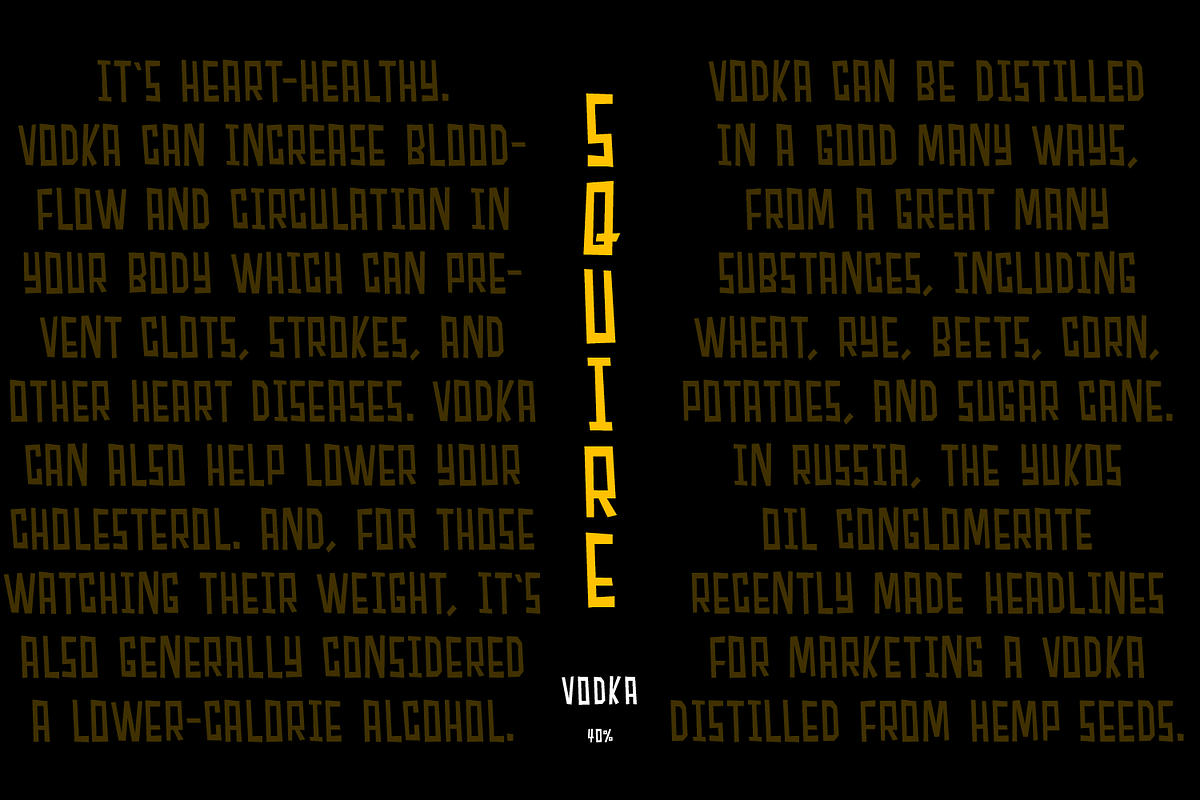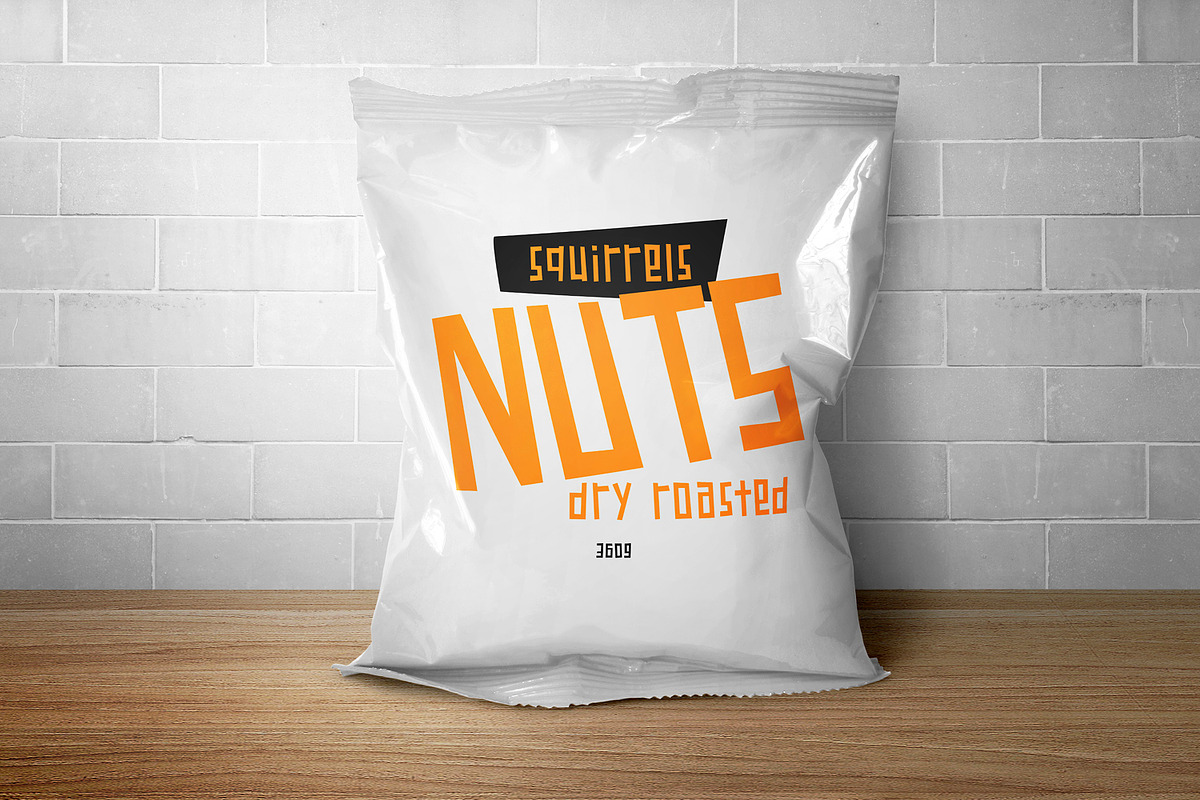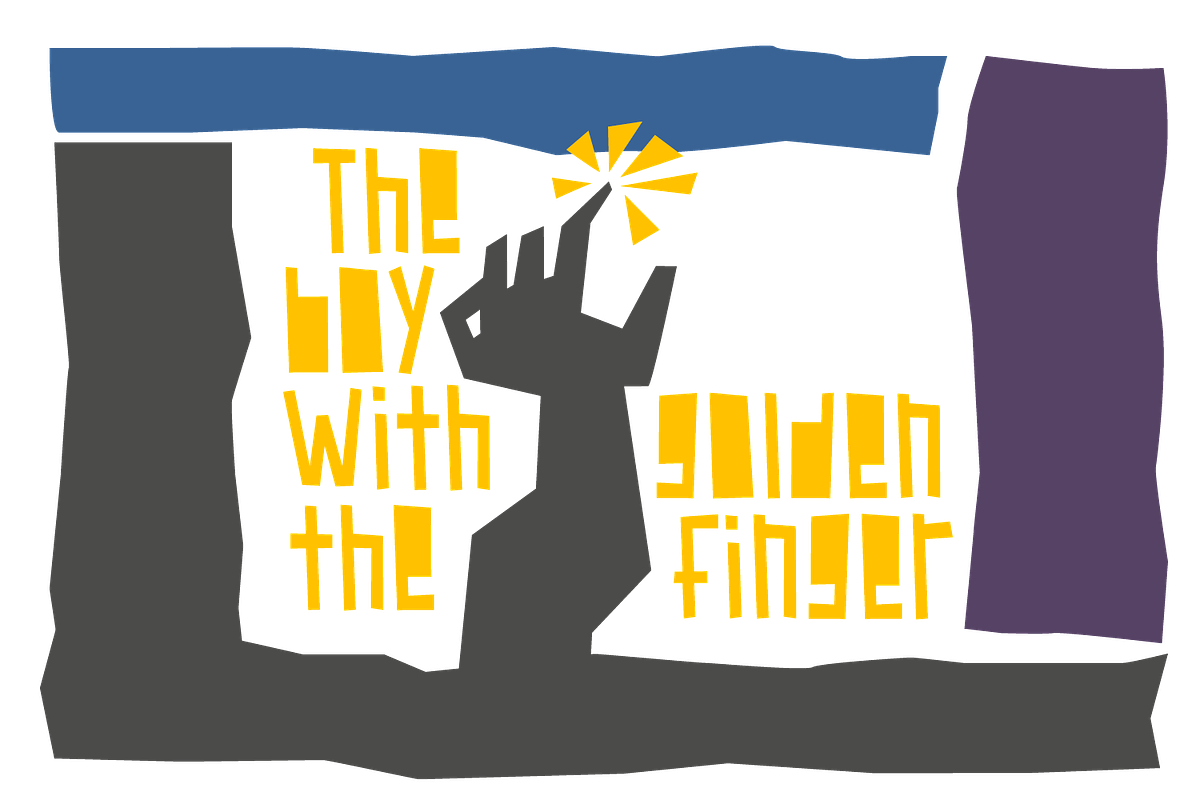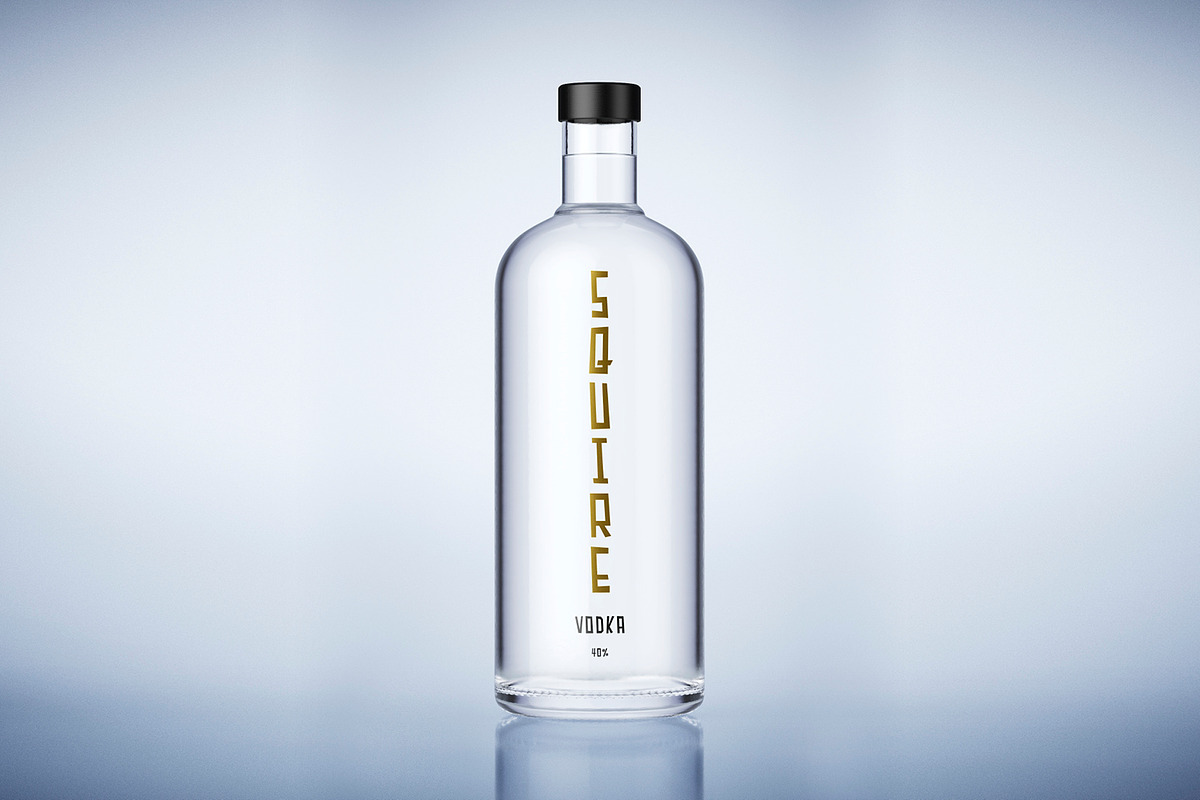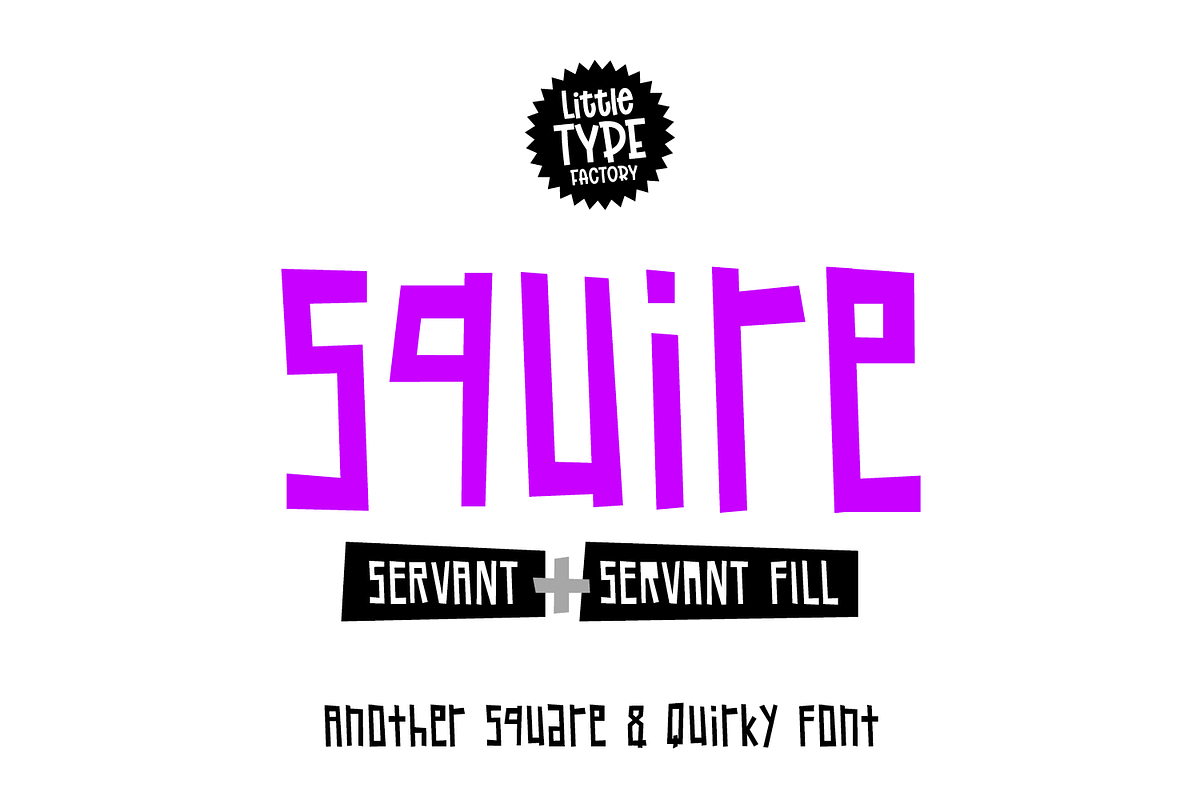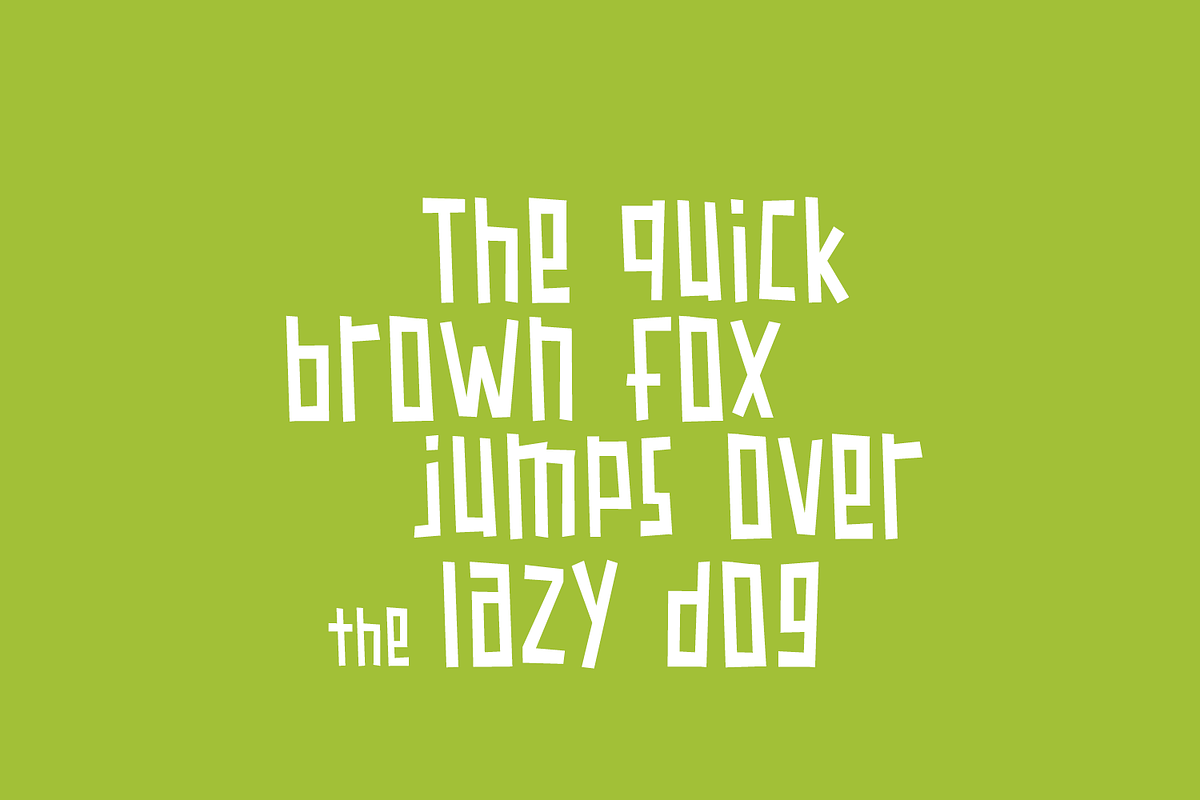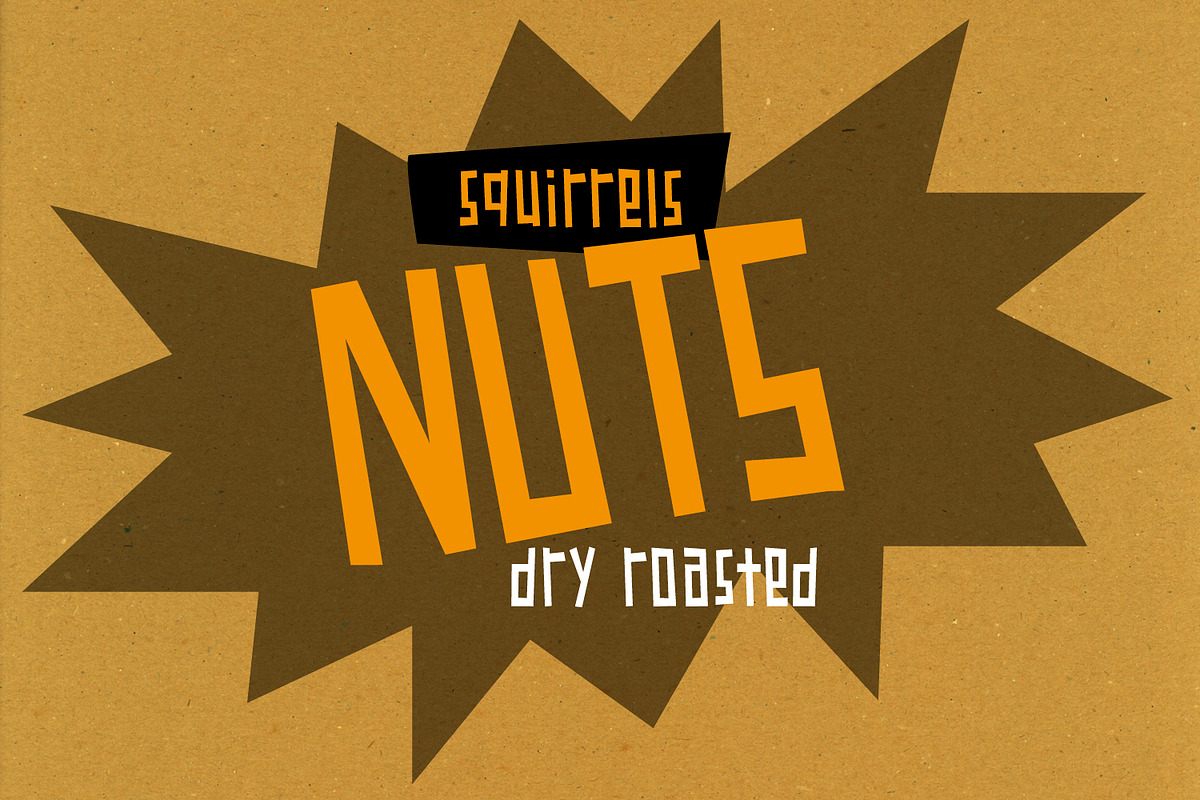
SQUIRE square & quirky font
SQUIRE Font Family A square and quirky font. Comes in 4 styles!
Squire Master and Squire Master Fill Squire Servant and Squire Servant Fill
Squire is a fun and dynamic font family created for many uses. Created in a handcut style reminiscent of Hitchcock fonts and graphics this works really well for branding and products. Can be used for grown up and children themed projects. Adds loads of character to all design work. Perfect for unique and eye-catching graphics. Also a great font for crafters.
Each style includes over 350 glyphs. Complete with uppercase, lowercase and special characters, including full European support (western, central and south eastern European glyphs).
SQUIRE square & quirky font by Little Type Factory fits naturally into Branding, posters, packaging, typography.